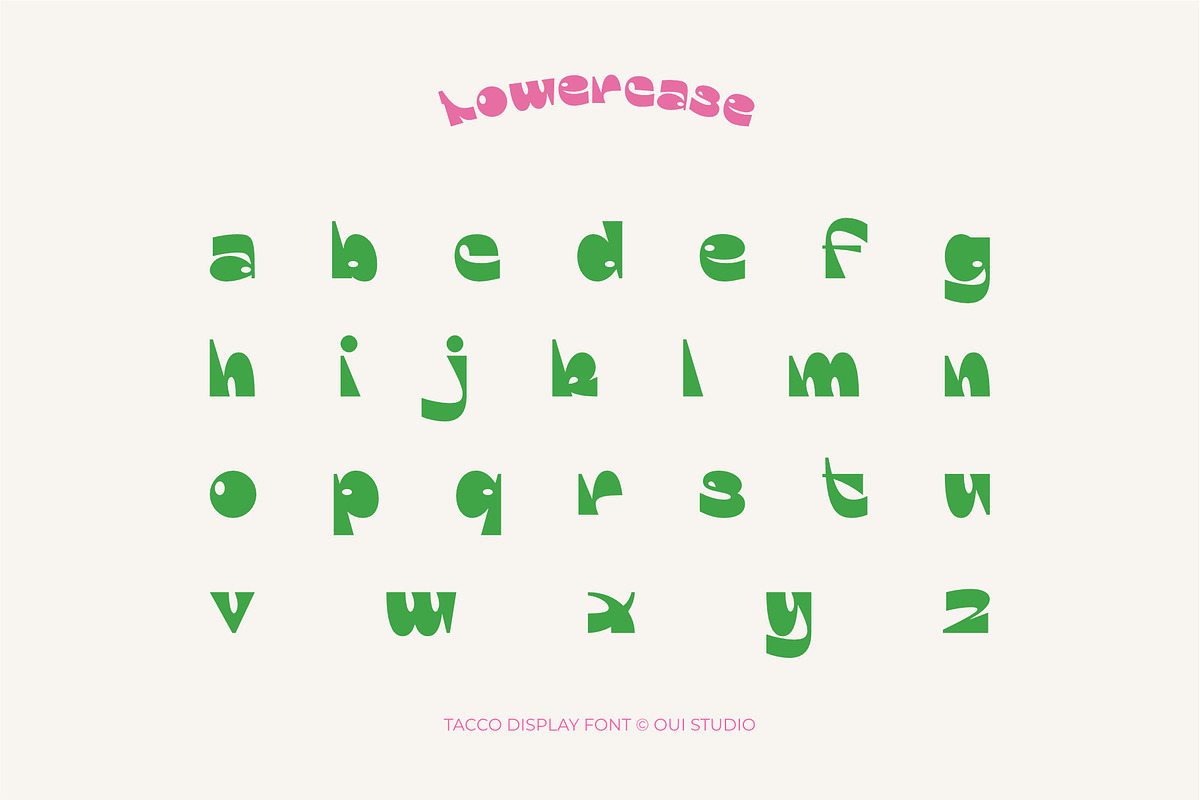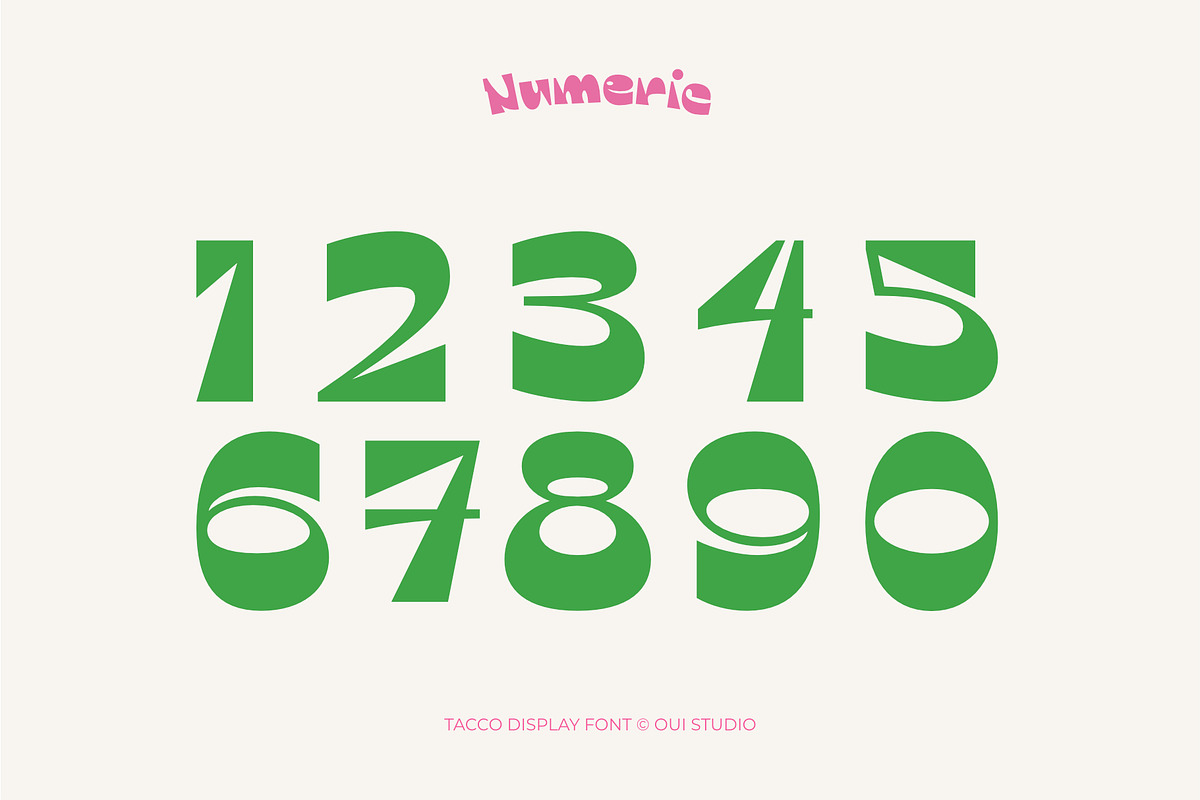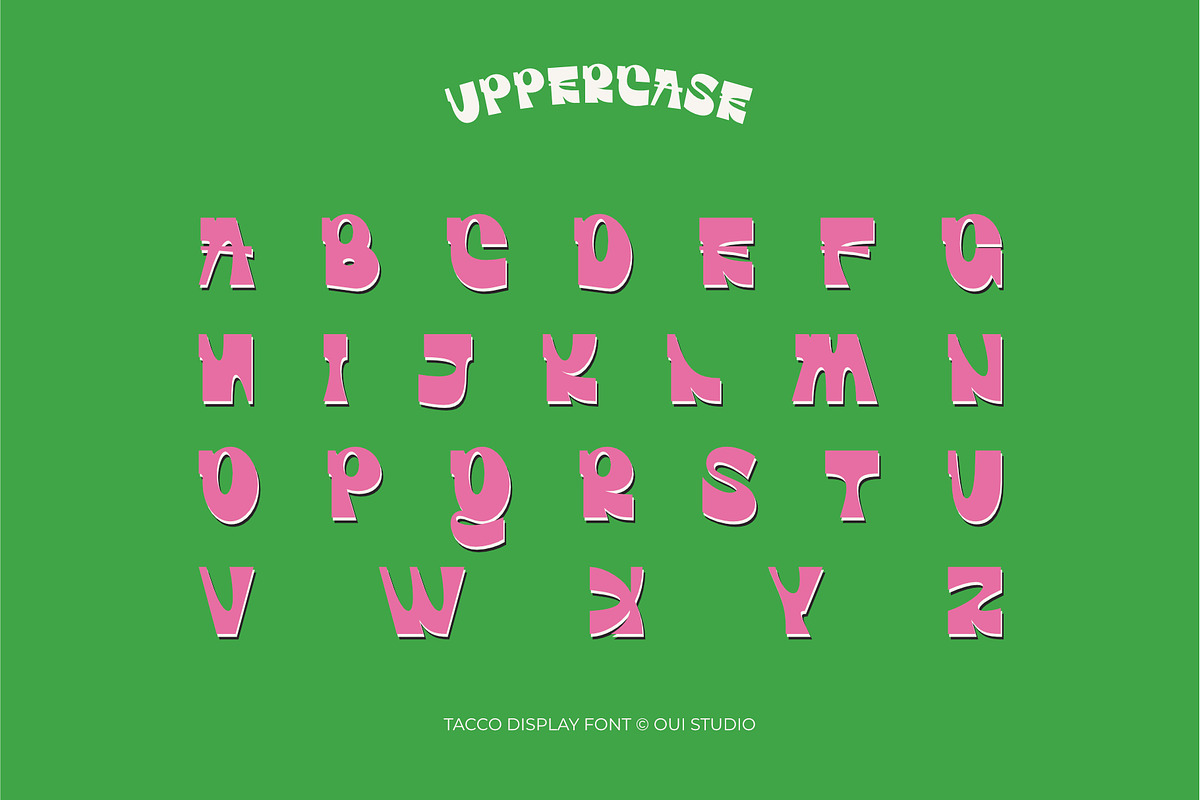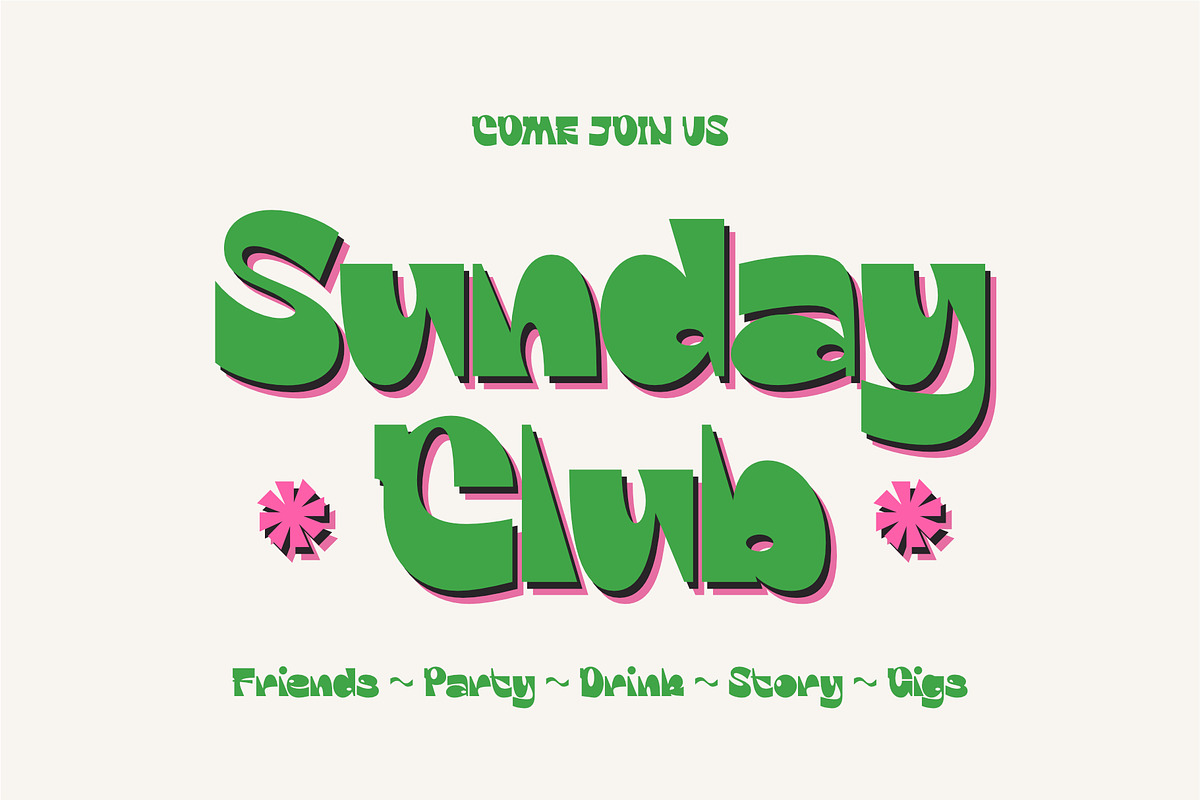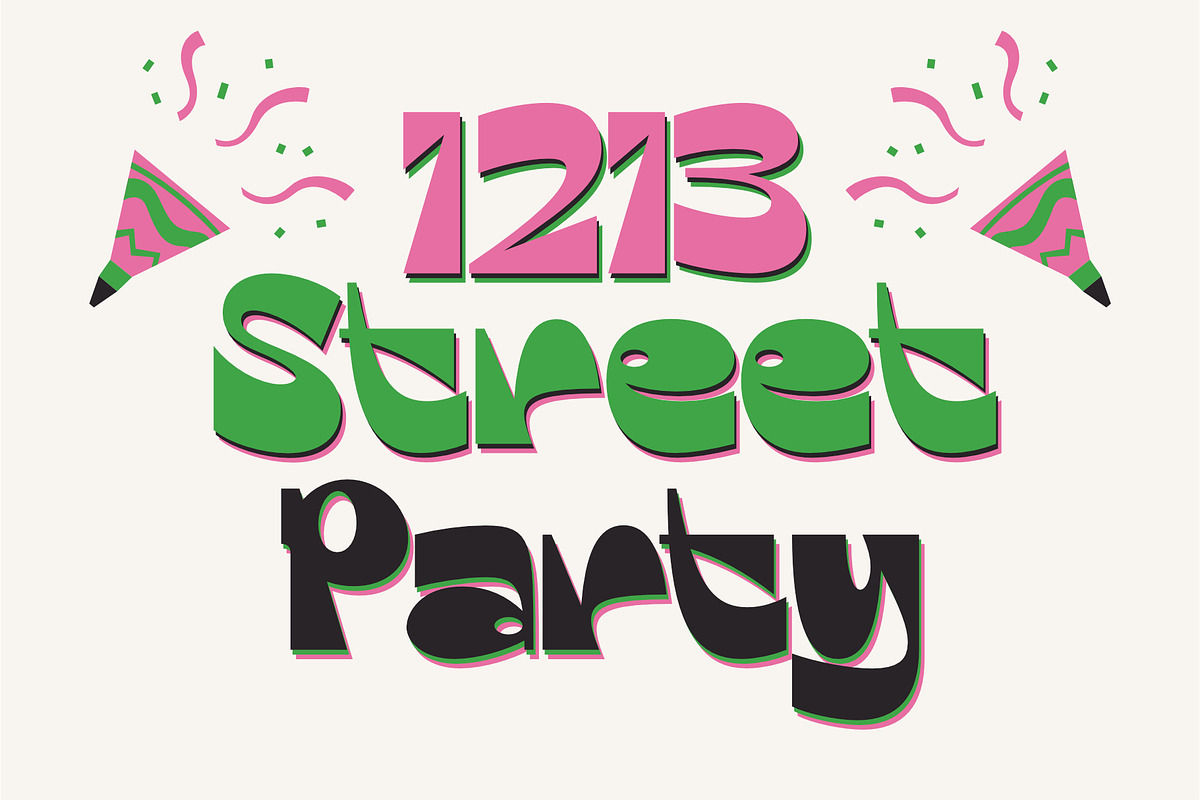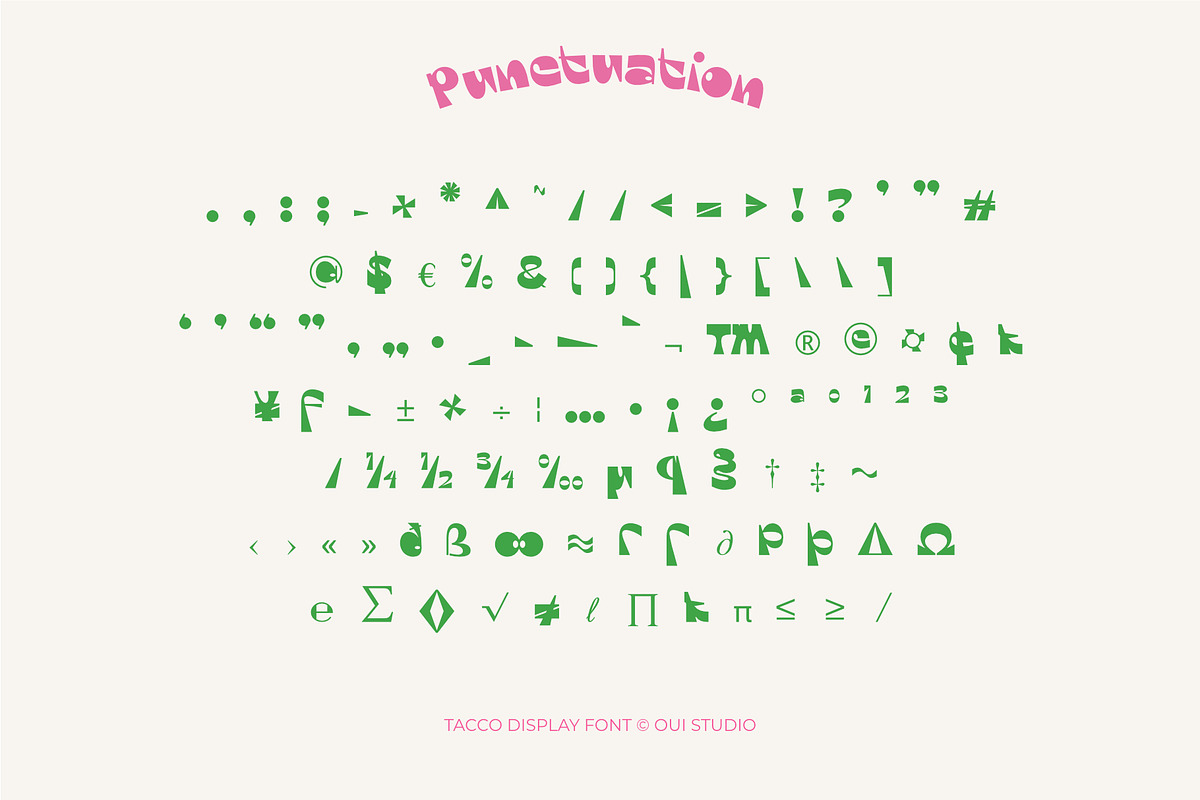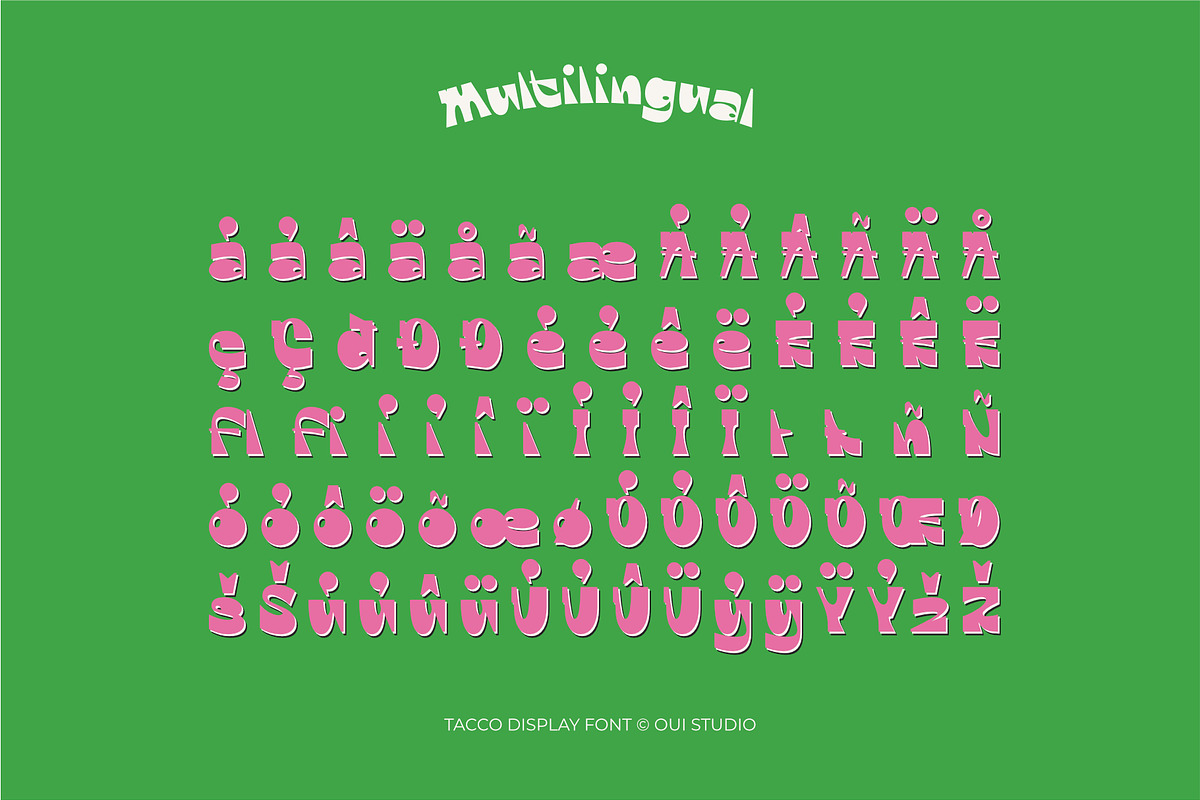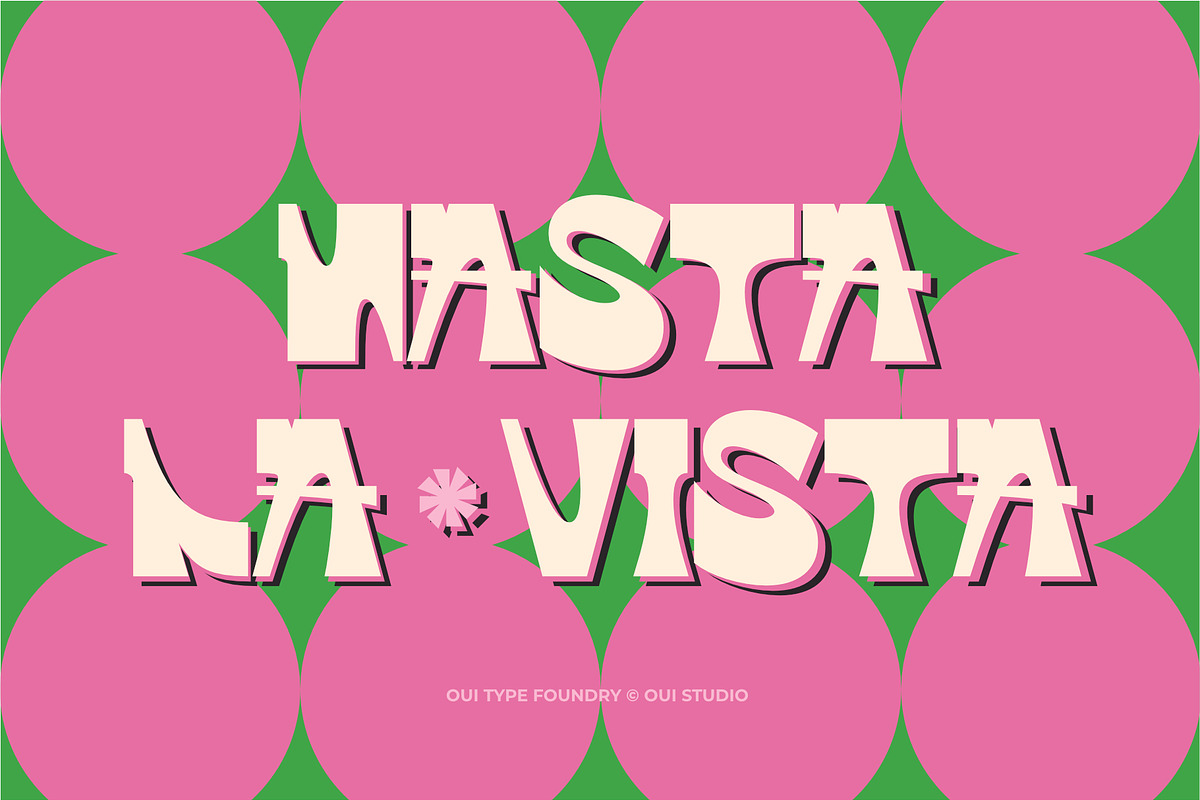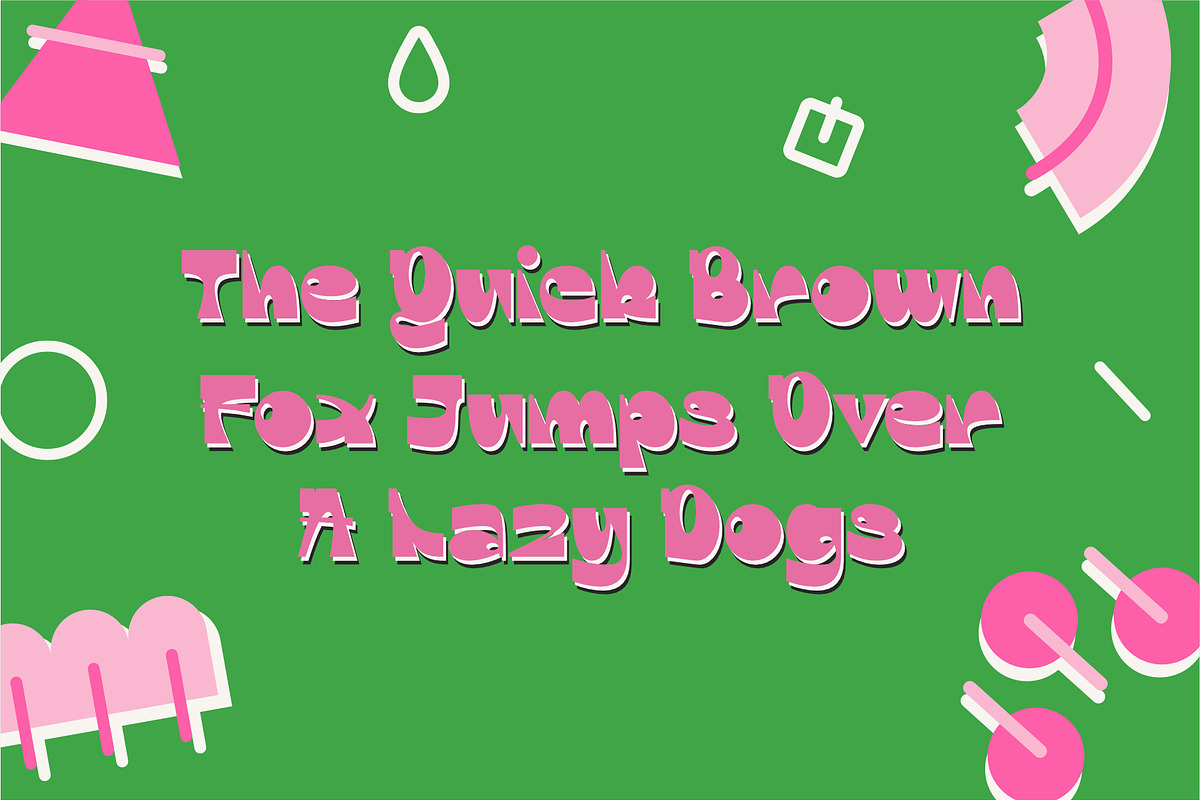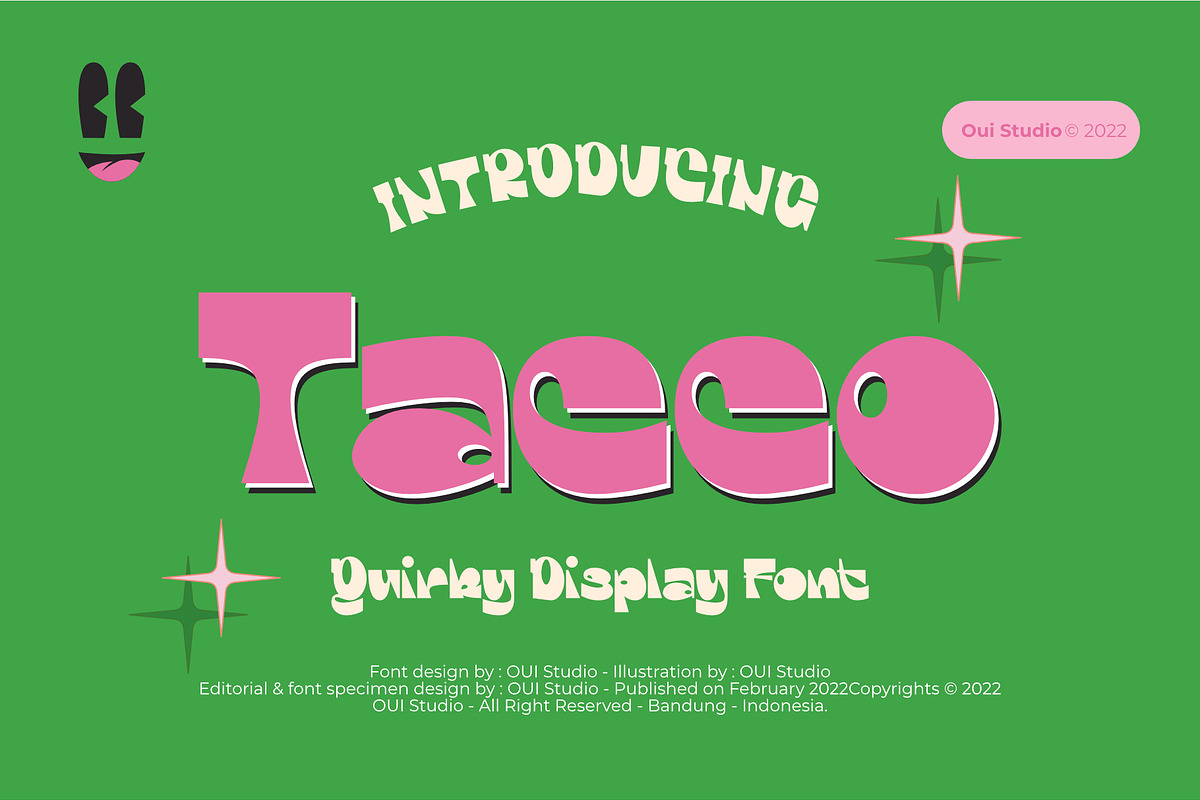
Hello, friends! The 'Tacco' font is coming, a quirky display font with dynamic feels. Tacco is very inspired by classic cartoon characters. It's perfect for branding, logo, packaging, header, title, t-shirt design, poster, etc. Tacco is great if you pair it with a cartoon-style illustration, it will make the design even more standout.